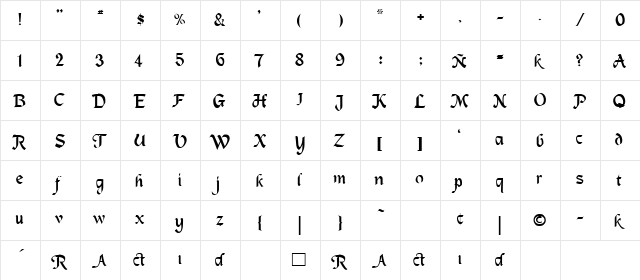
MAGNETA Regular
Design Context for MAGNETA Typeface
MAGNETA takes a measured approach to typography — its balanced proportions and neutral character make it a reliable workhorse for both digital and print work.
Pro Tip: Pair MAGNETA with a font of contrasting weight or personality to build a more expressive typographic hierarchy.